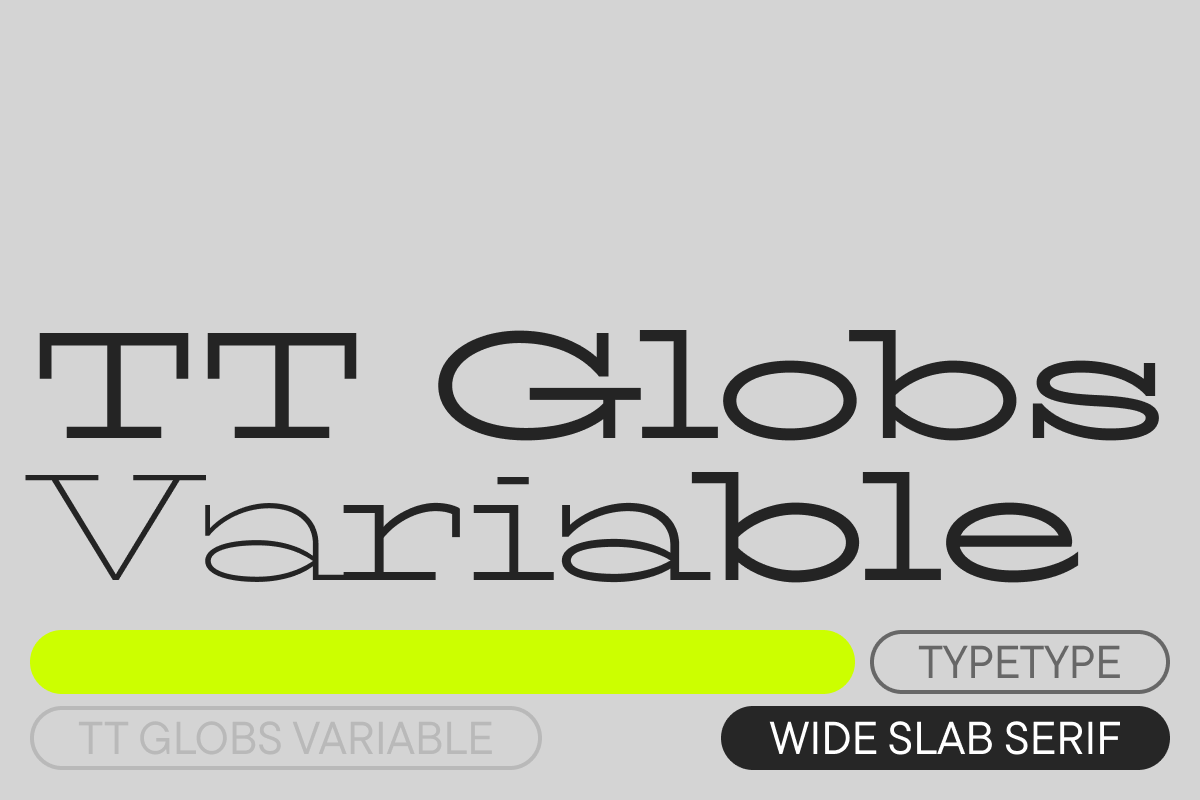
TT Globs Variable
TT Globs is a stylish, wild-proportioned slab serif with a friendly nature and summer vibes. When we designed it, we aimed to combine historical slab serif forms with modern font design concepts. As a result, we got a relevant, fresh, and distinctive designer typeface. TT Globs is a typeface for special occasions that will match any “font wardrobe” and introduce more variety to the simpler options.